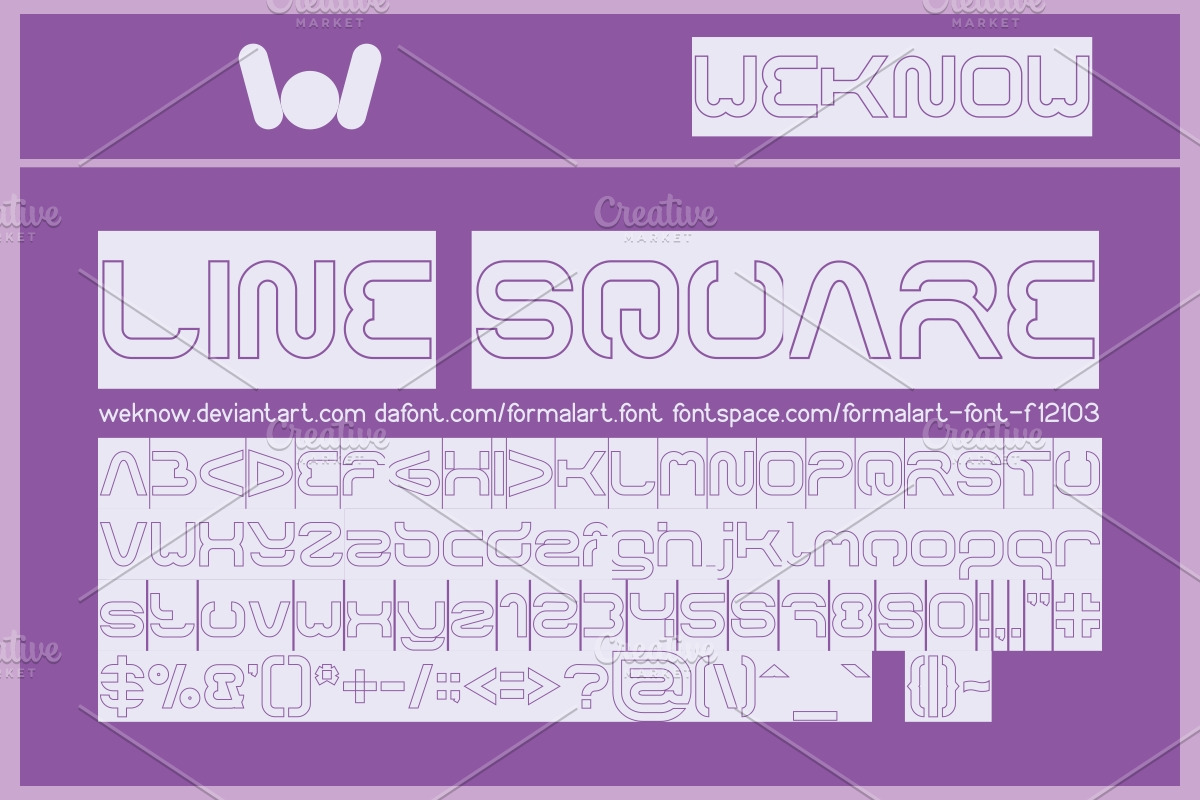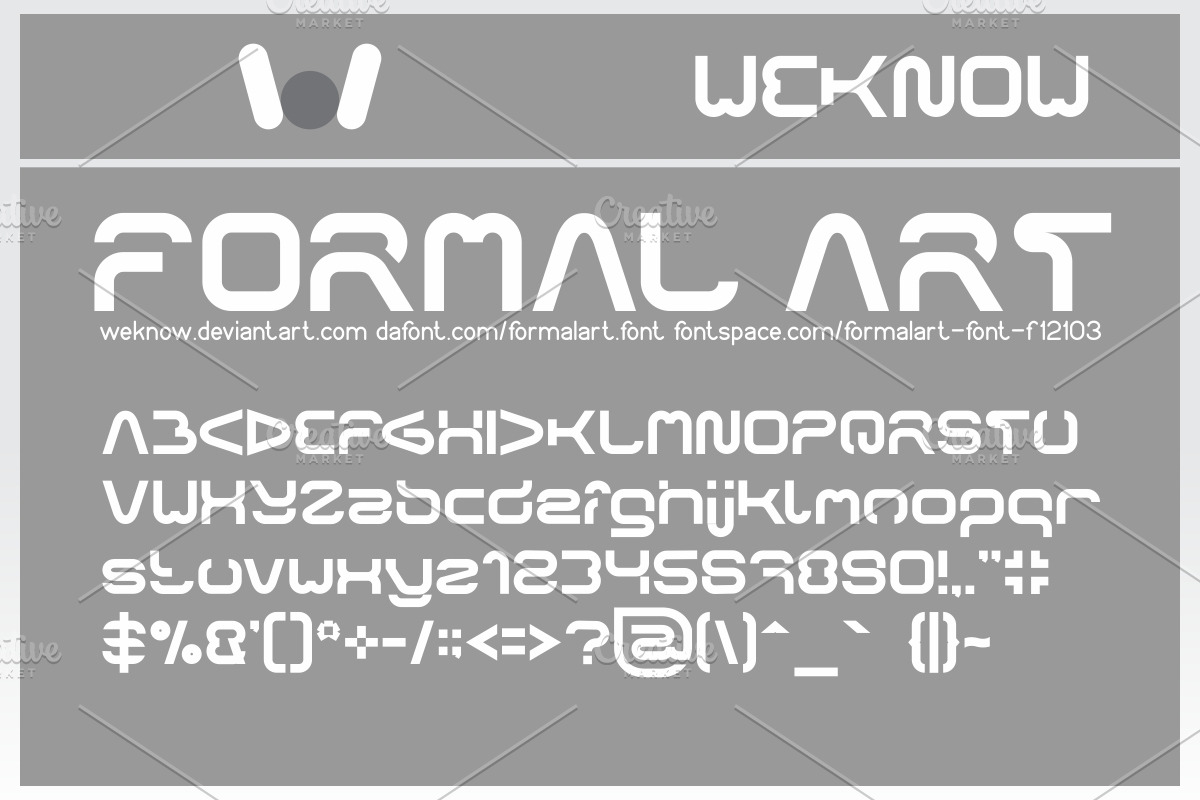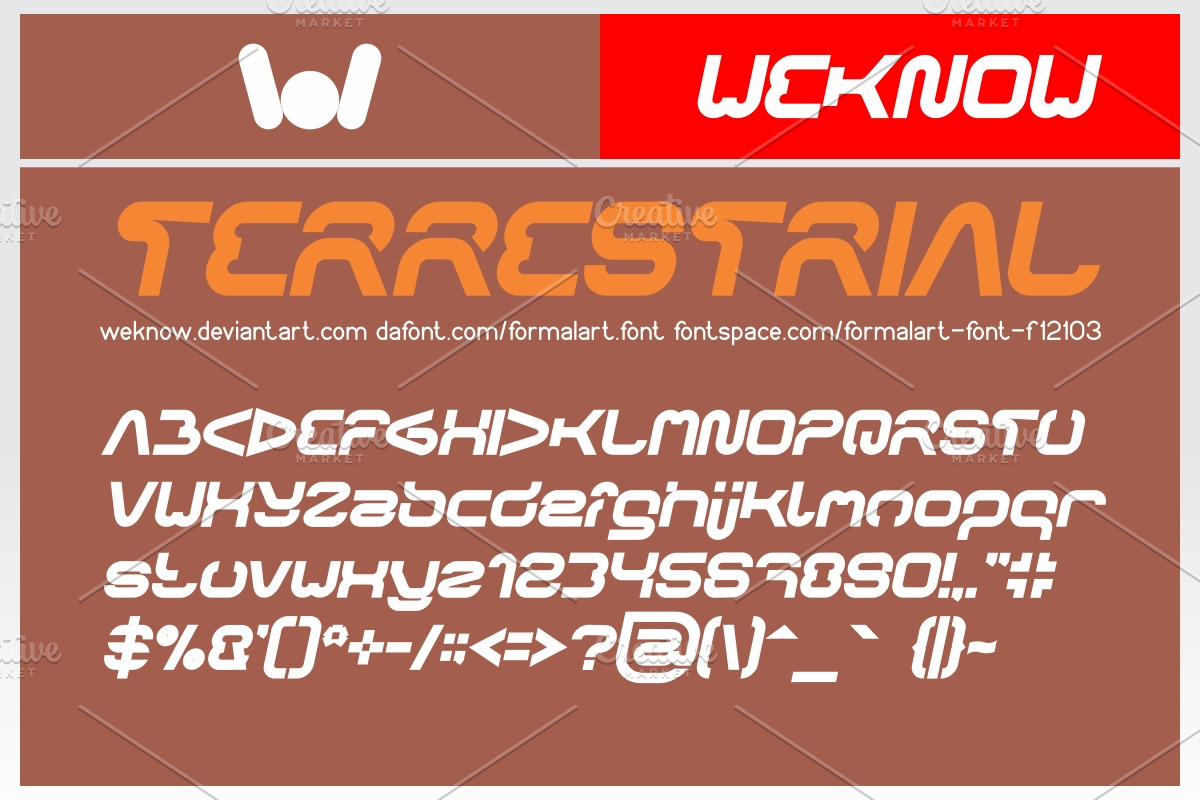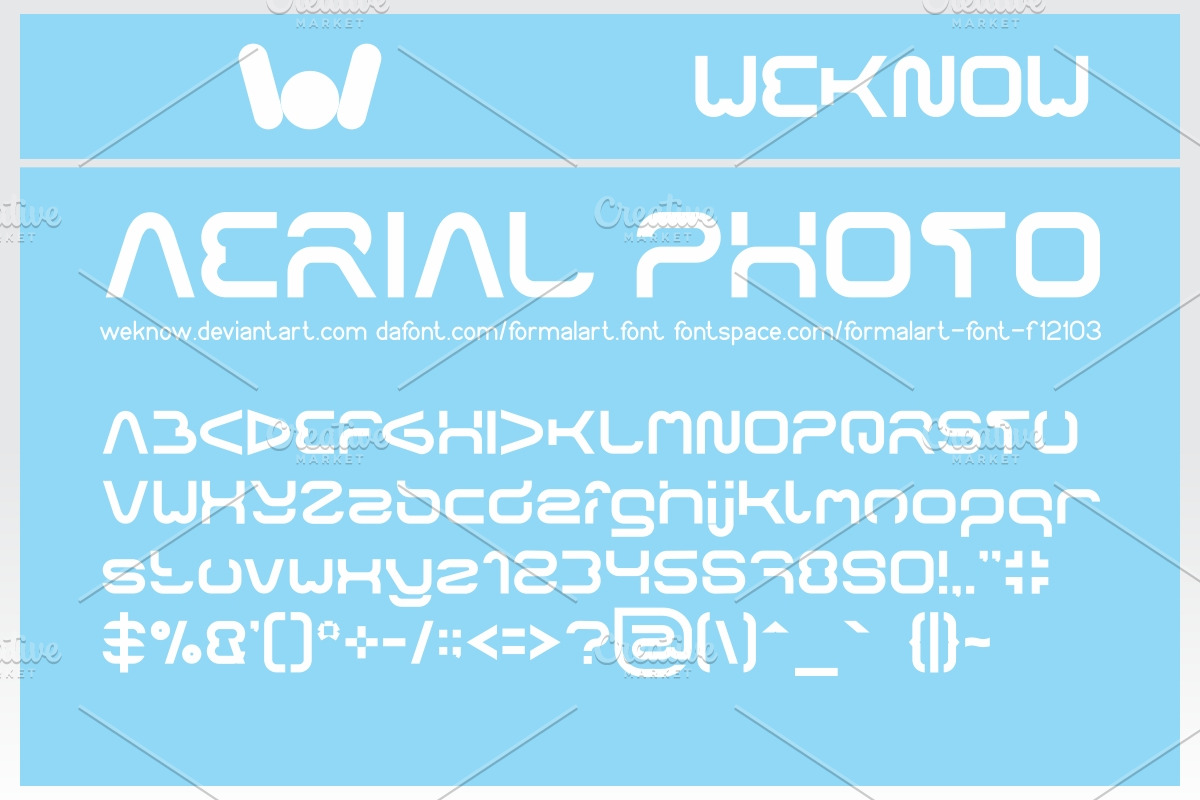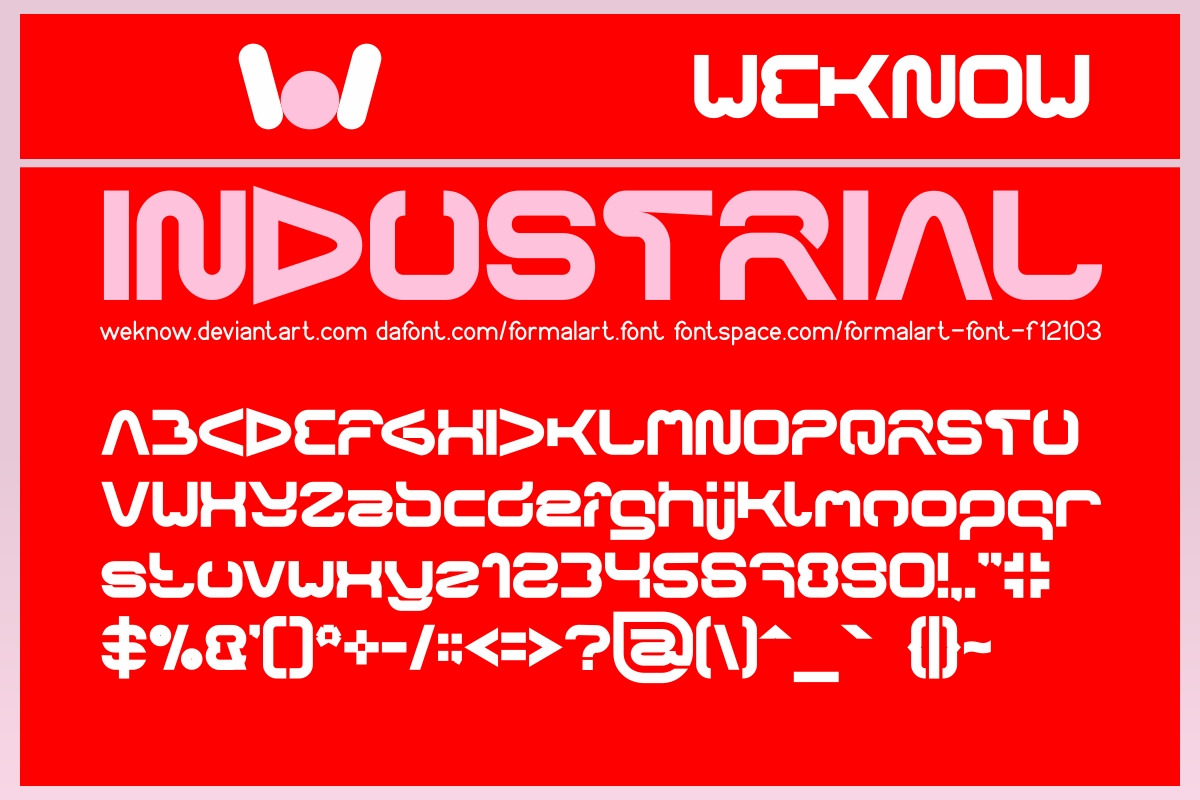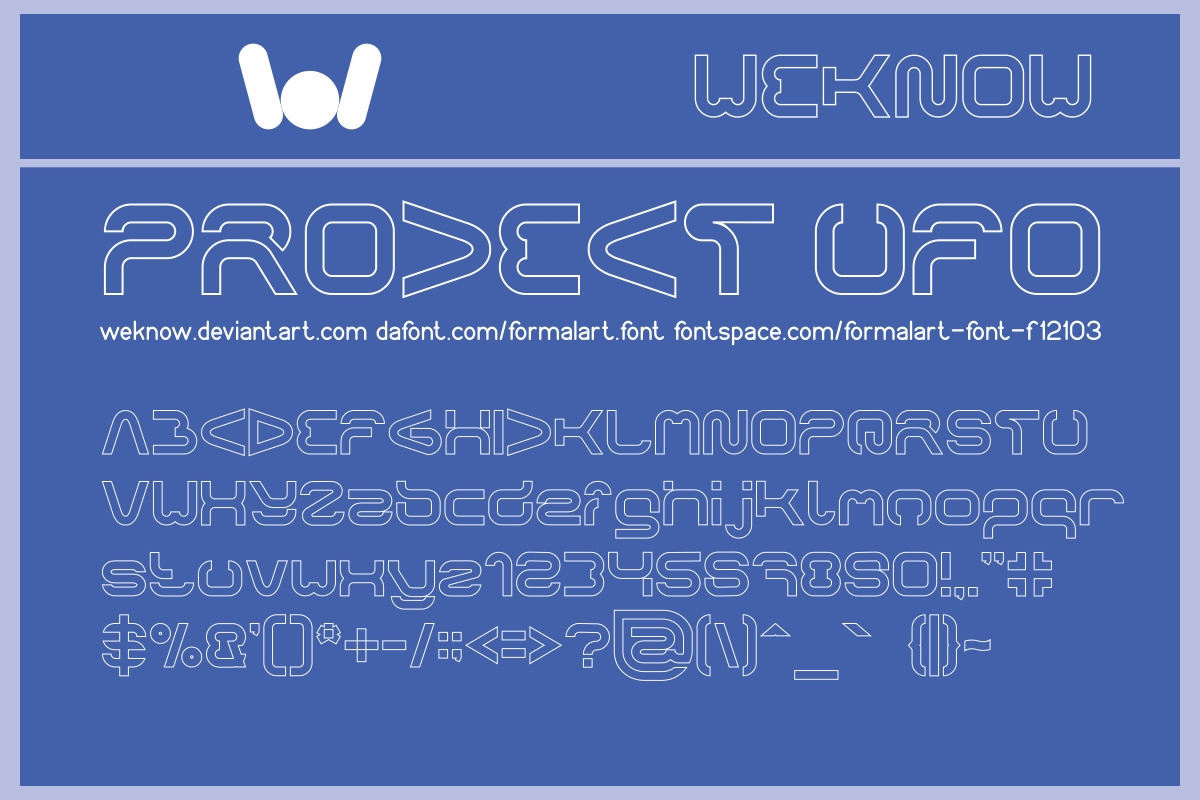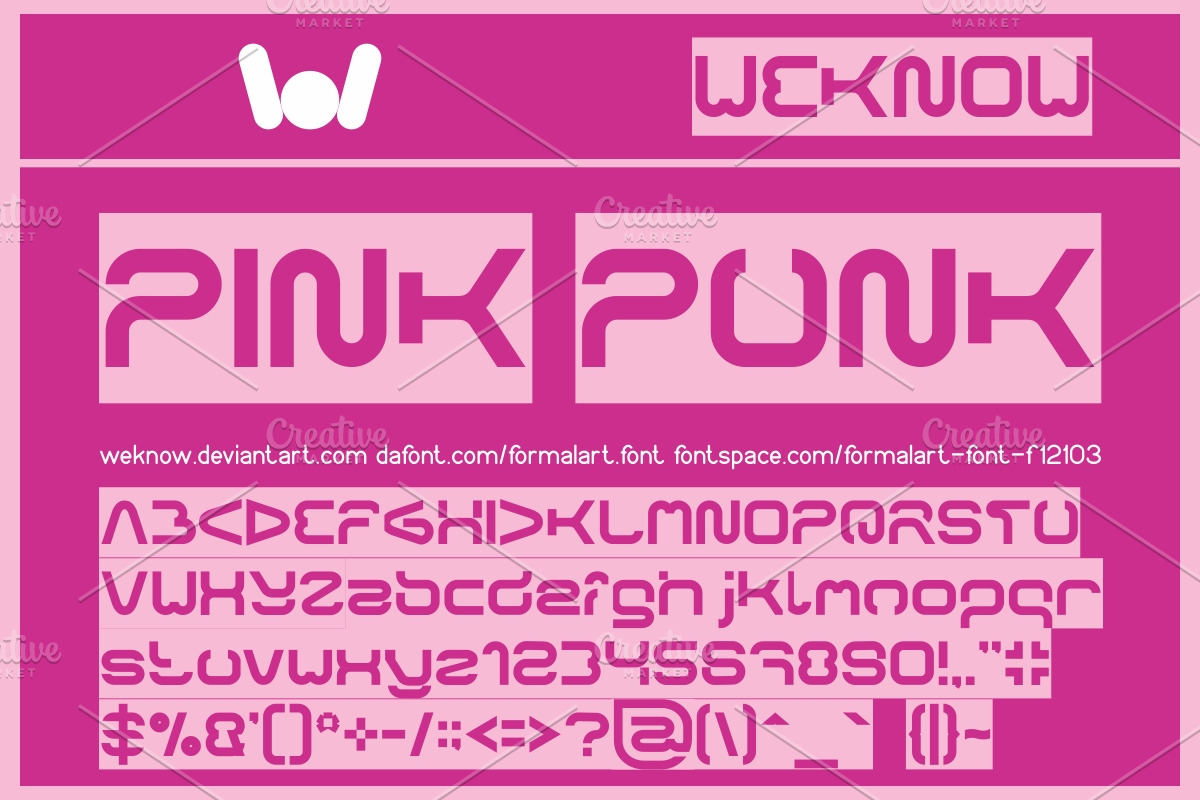
formal art font
available style: FORMAL ART-Bold, FORMAL ART-Bold-Italic, FORMAL ART-Hollow, FORMAL ART-Hollow-Inverse, FORMAL ART-Light
formal art font by weknow fits naturally into Branding, posters, packaging, typography.